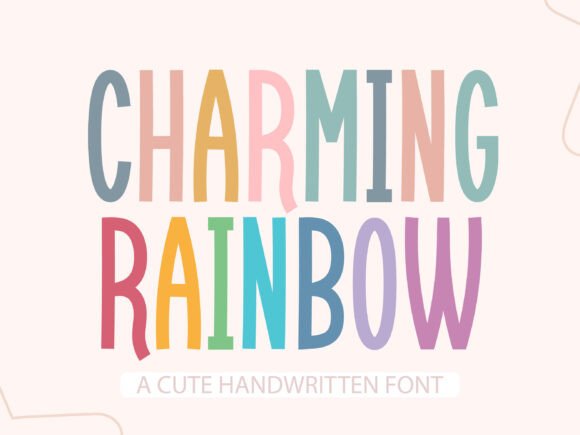
Introducing the Charming Rainbow Font: Elevate Your Designs with a Touch of Elegance
The Charming Rainbow Font is a stunning sans serif font that has been making waves in the design community. Its unique and eye-catching design makes it perfect for a wide range of creative projects, from crafting and DIY tutorials to digital designs and branding. In this article, we’ll dive into the world of the Charming Rainbow Font, exploring its features, benefits, and uses, as well as providing tips and inspiration for incorporating it into your designs.
The Features of Charming Rainbow Font
The Charming Rainbow Font is a sans stylish font that boasts a range of features that make it stand out from the crowd. Some of its key features include:
- Unique Design: The Charming Rainbow Font has a one-of-a-kind design that adds a touch of elegance and uniqueness to any design or craft idea.
- Eye-catching: The font’s vibrant and playful design makes it perfect for grabbing attention and adding visual interest to your designs.
- Sans Serif: The font’s sans serif design makes it clean, modern, and highly legible.
- Versatile: The Charming Rainbow Font is perfect for a wide range of creative projects, from digital designs to crafting and DIY tutorials.
The Benefits of Using Charming Rainbow Font
The Charming Rainbow Font offers a range of benefits that make it a go-to choice for designers and crafters. Some of the key benefits include:
- Elegance and Sophistication: The font’s unique design adds a touch of elegance and sophistication to any design or craft idea.
- Visual Interest: The font’s eye-catching design makes it perfect for adding visual interest and grabbing attention.
- Legibility: The font’s clean and modern design makes it highly legible, even at small sizes.
- Versatility: The Charming Rainbow Font is perfect for a wide range of creative projects, making it a versatile addition to any design toolkit.
Uses for Charming Rainbow Font
The Charming Rainbow Font is perfect for a wide range of creative projects, including:
- Digital Designs: Use the font to add a touch of elegance and sophistication to your digital designs, from social media graphics to website headers.
- Crafting and DIY Tutorials: The font is perfect for crafting and DIY tutorials, adding a touch of personality and visual interest to your instructions and guides.
- Branding: Use the Charming Rainbow Font to create stunning brand identities, from logos to business cards.
- Signage: The font’s eye-catching design makes it perfect for signage, from store signs to event banners.
Tips for Using Charming Rainbow Font
Here are some tips for getting the most out of the Charming Rainbow Font:
- Experiment with Colors: The Charming Rainbow Font is perfect for experimenting with different colors and color combinations.
- Play with Sizes: The font’s clean and modern design makes it highly legible, even at small sizes.
- Mix and Match: Don’t be afraid to mix and match the Charming Rainbow Font with other fonts and design elements.
- Get Creative: The Charming Rainbow Font is perfect for getting creative and trying out new and innovative design ideas.
Inspiration for Using Charming Rainbow Font
Here are some inspiring ideas for using the Charming Rainbow Font:
- Create a Stunning Logo: Use the Charming Rainbow Font to create a stunning logo for your business or brand.
- Design a Beautiful Website Header: The font is perfect for designing a beautiful website header that grabs attention and adds visual interest.
- Make a Beautiful Sign: Use the Charming Rainbow Font to make a beautiful sign for your business or event.
- Create a Gorgeous Social Media Graphic: The font is perfect for creating gorgeous social media graphics that add a touch of elegance and sophistication to your online presence.
| Font Name | Charming Rainbow Font |
The Charming Rainbow Font is a stunning sans serif font that is perfect for a wide range of creative projects. Its unique design adds a touch of elegance and sophistication to any design or craft idea, making it a go-to choice for designers and crafters. With its versatility, legibility, and eye-catching design, the Charming Rainbow Font is sure to become a staple in any design toolkit.
- What is the Charming Rainbow Font? The Charming Rainbow Font is a sans stylish and eye-catching font that is perfect for various creative projects.
- What are the features of the Charming Rainbow Font? The font boasts a range of features, including a unique design, eye-catching appearance, sans serif design, and versatility.
- What are the benefits of using the Charming Rainbow Font? The font offers a range of benefits, including elegance and sophistication, visual interest, legibility, and versatility.
- What are some uses for the Charming Rainbow Font? The font is perfect for a wide range of creative projects, including digital designs, crafting and DIY tutorials, branding, and signage.